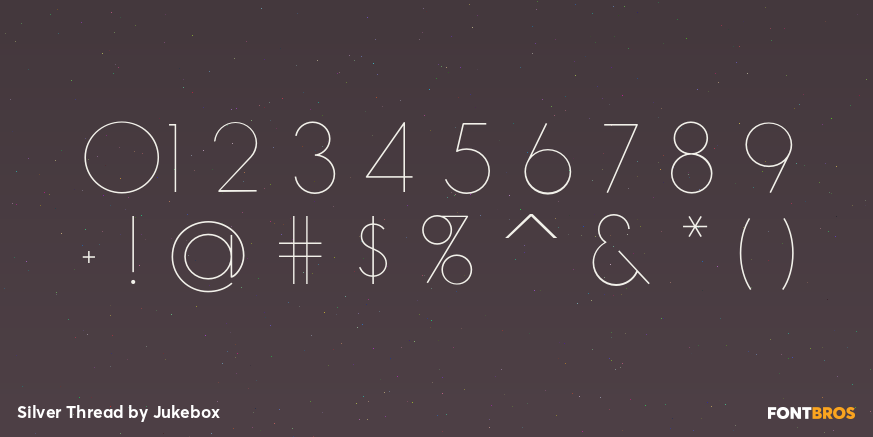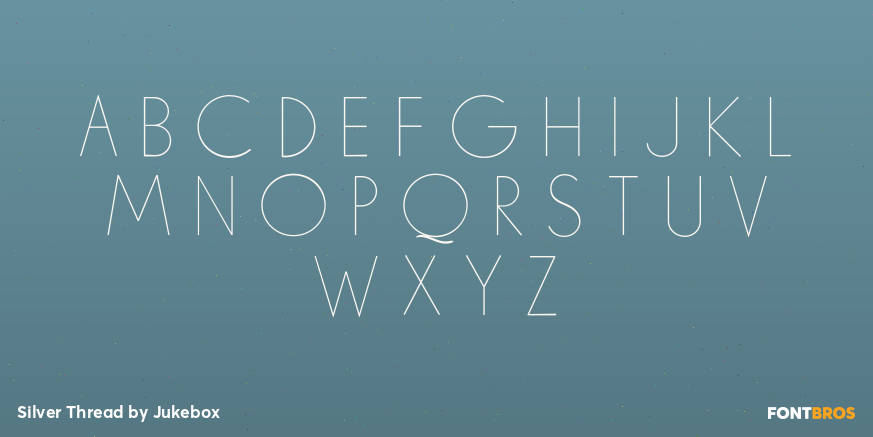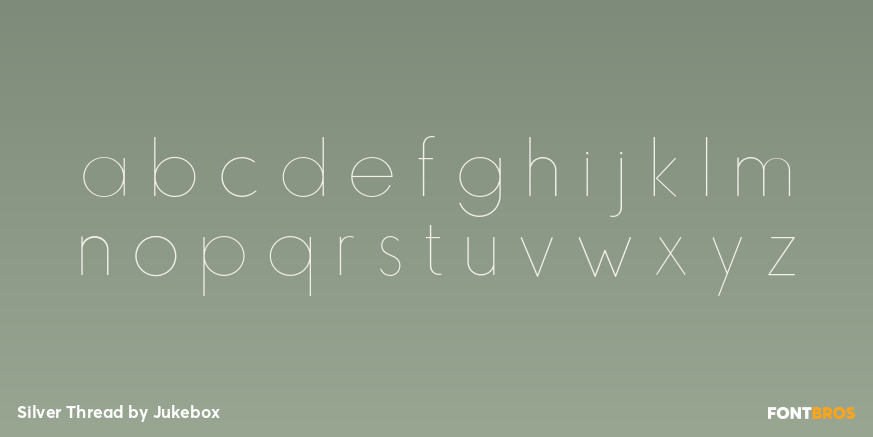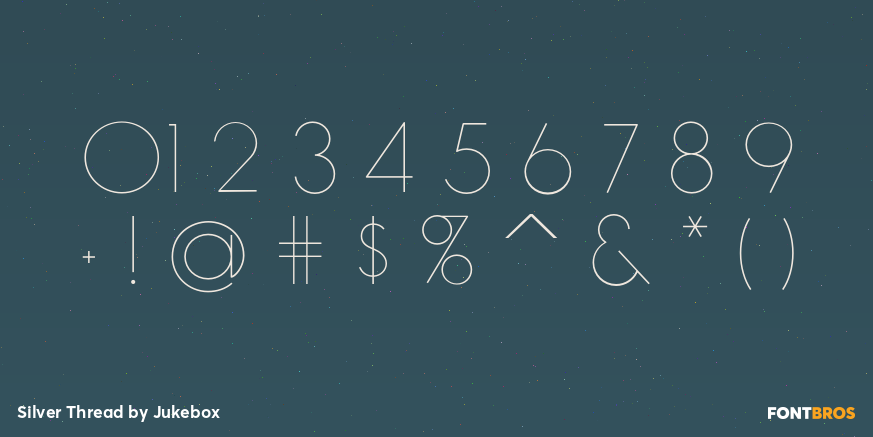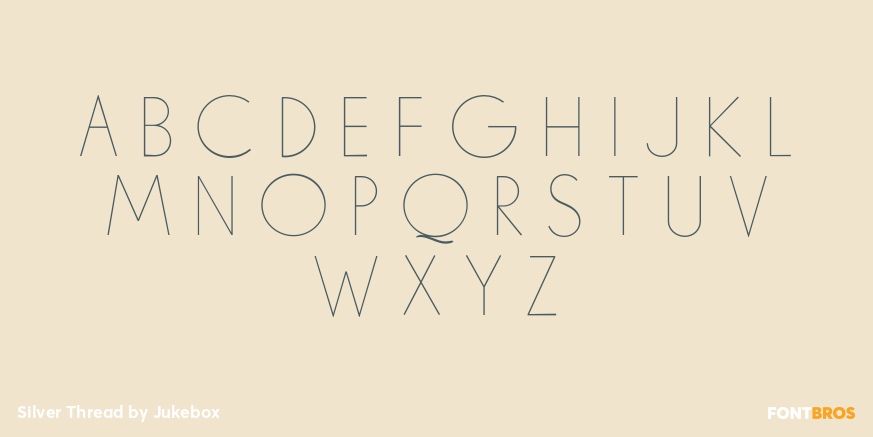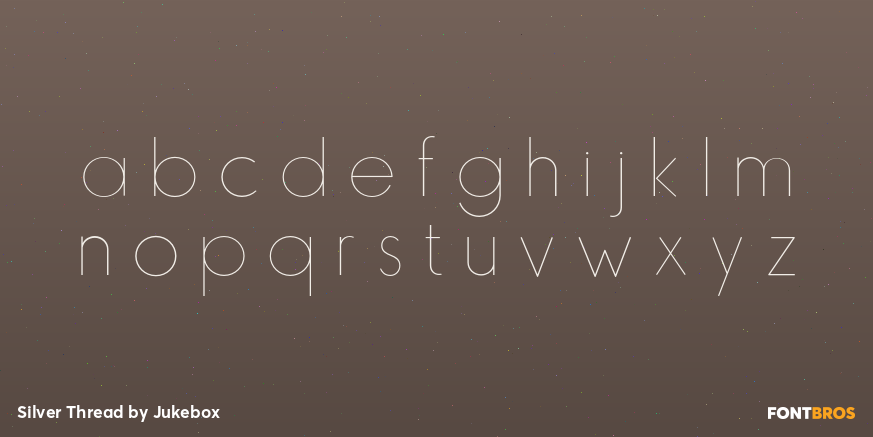
Silver Thread
Font Family by Jukebox
Silver Thread is a hairline thin geometric sans serif font with both art deco and 1970s elements to it. Perfect for any project that needs a typeface which evokes elegance and sophistication. Digitally revived from an older photo-typositing face, Silver Thread is named after a waterfalls in Pennsylvania. The font contains alternate versions of B, Q, W, &, a, e, k, n, s, t, u, w, y and 4 for added variety. They can be found under the Stylistic Alternates OT feature.